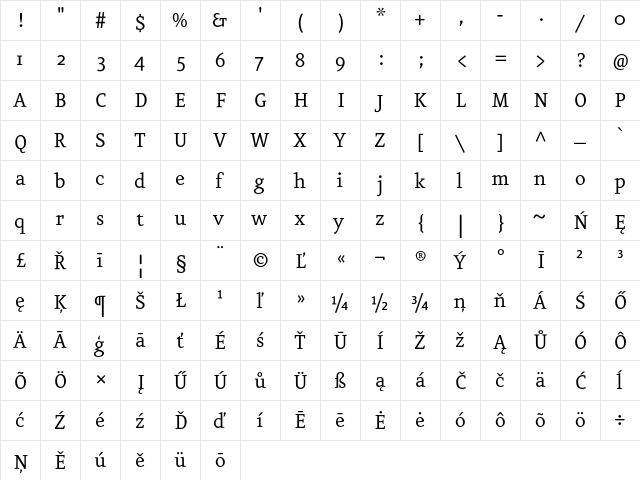
EurekaCE Roman
Design Context for EurekaCE Typeface
EurekaCE is a composed and adaptable typeface that performs quietly and consistently across a wide range of design contexts.